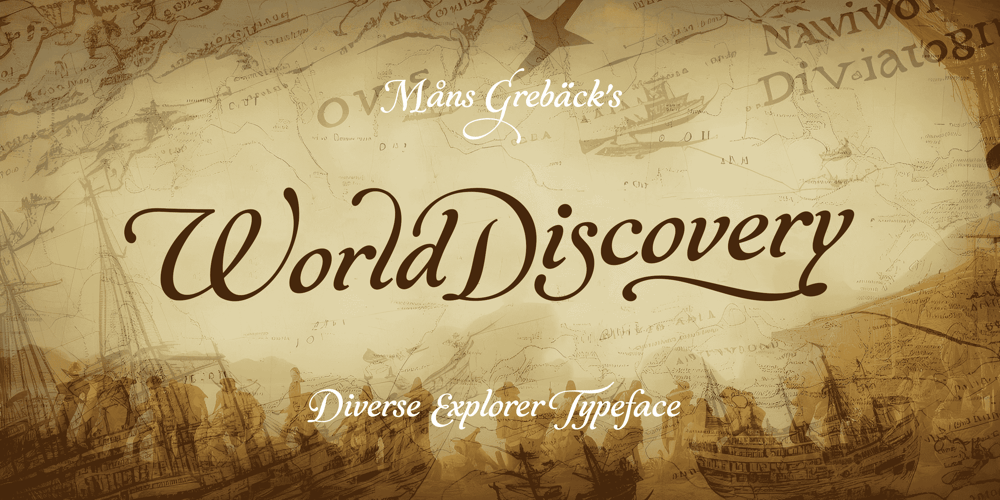
World Discovery Font Family was designed by Måns Grebäck and published by Mans Greback. World Discovery contains 19 styles and family package options. World Discovery is a stunning calligraphy font that exudes a sense of beauty, romance, and exploration. The artistic swirls and slanted serifs come together to create a distinctive, high-quality, and exclusive typeface that will bring an antique charm to your designs.World Discovery has its origin in 15th-century discovery maps. Designer Mans Greback procured maps from the state library, and the exquisite penmanship and intricate details on the map, showcasing the venture of exploration and the grandeur of the Age of Discovery, sparked the unique and evocative letterforms that now make up the World Discovery font.The font offers an impressive array of 19 styles, including six distinctive main styles, their italic versions, as well as light, regular, and bold weights, as well as a Swash style for added flair.Combining the fonts gives you infinite possibilities to create a truly customized typographical artwork. The font is built with advanced OpenType functionality and has a guaranteed top-notch quality, containing stylistic and contextual alternates, ligatures, and more features; all to give you full control and customizability. It has extensive lingual support, covering all Latin-based languages, from Northern Europe to South Africa, from America to South-East Asia. It contains all characters and symbols you’ll ever need, including all punctuation and numbers.